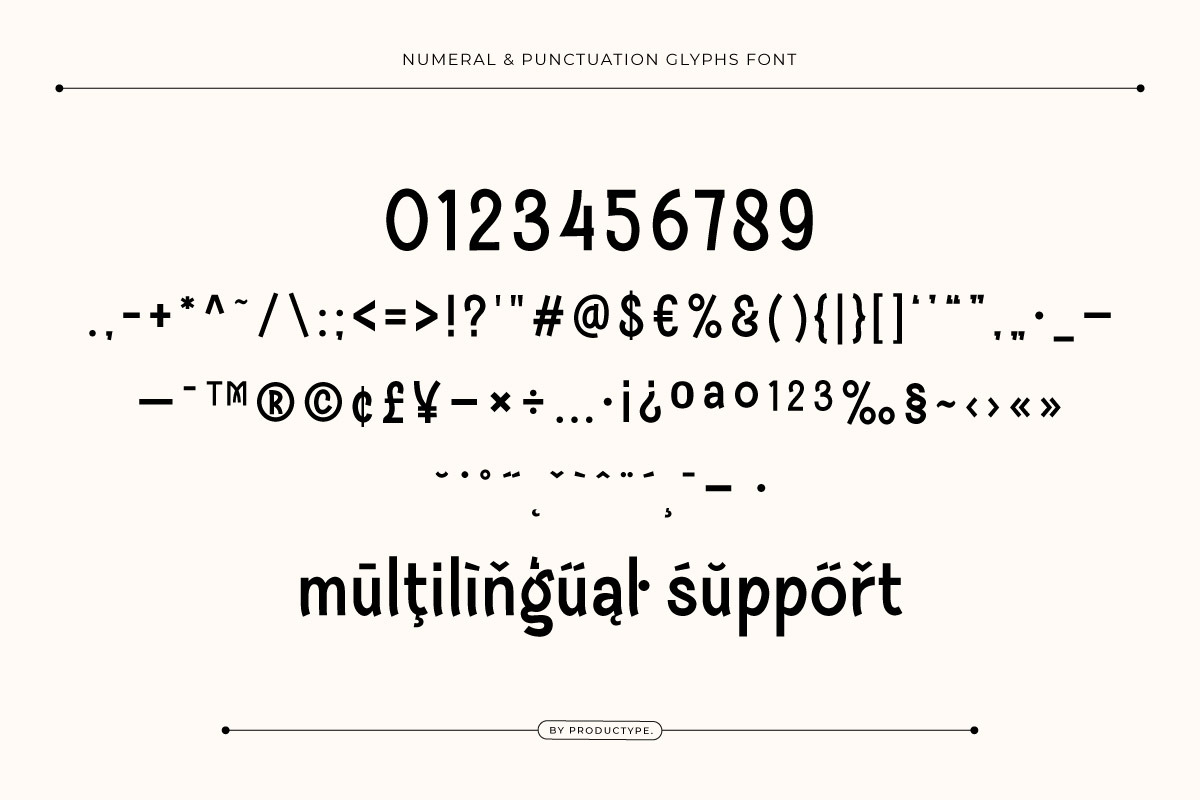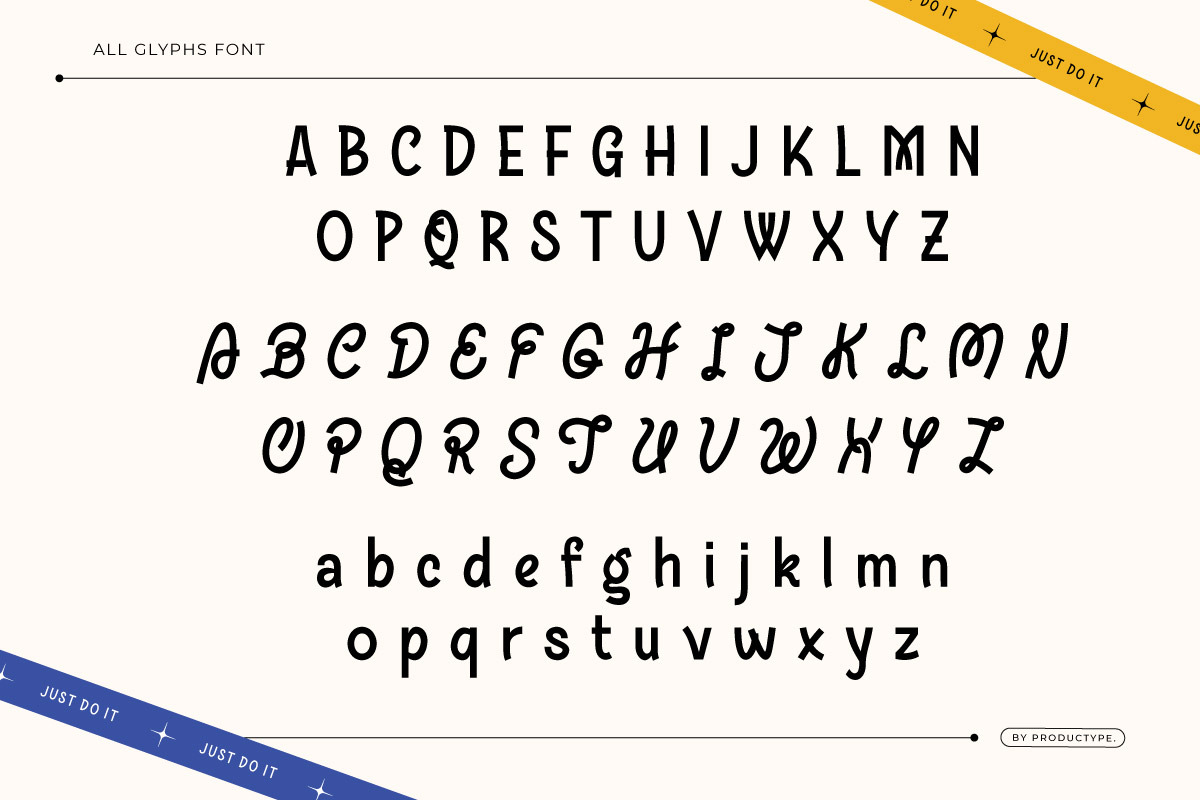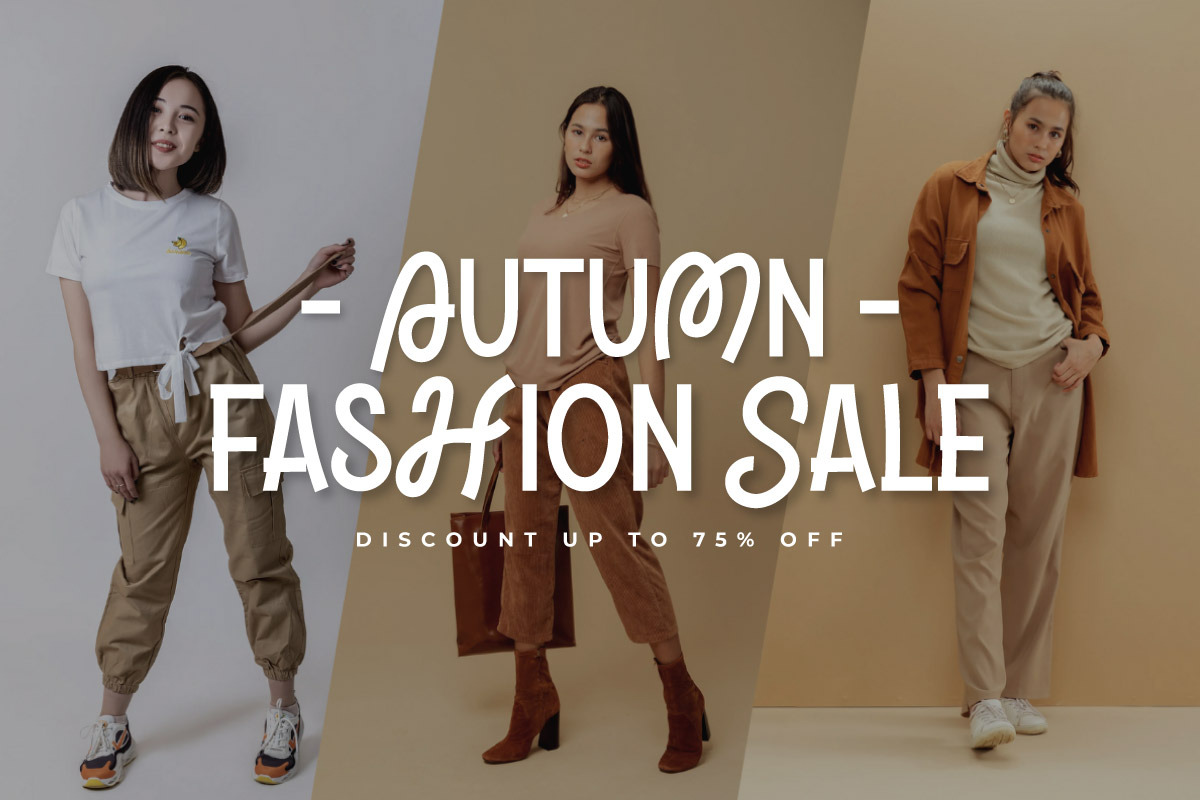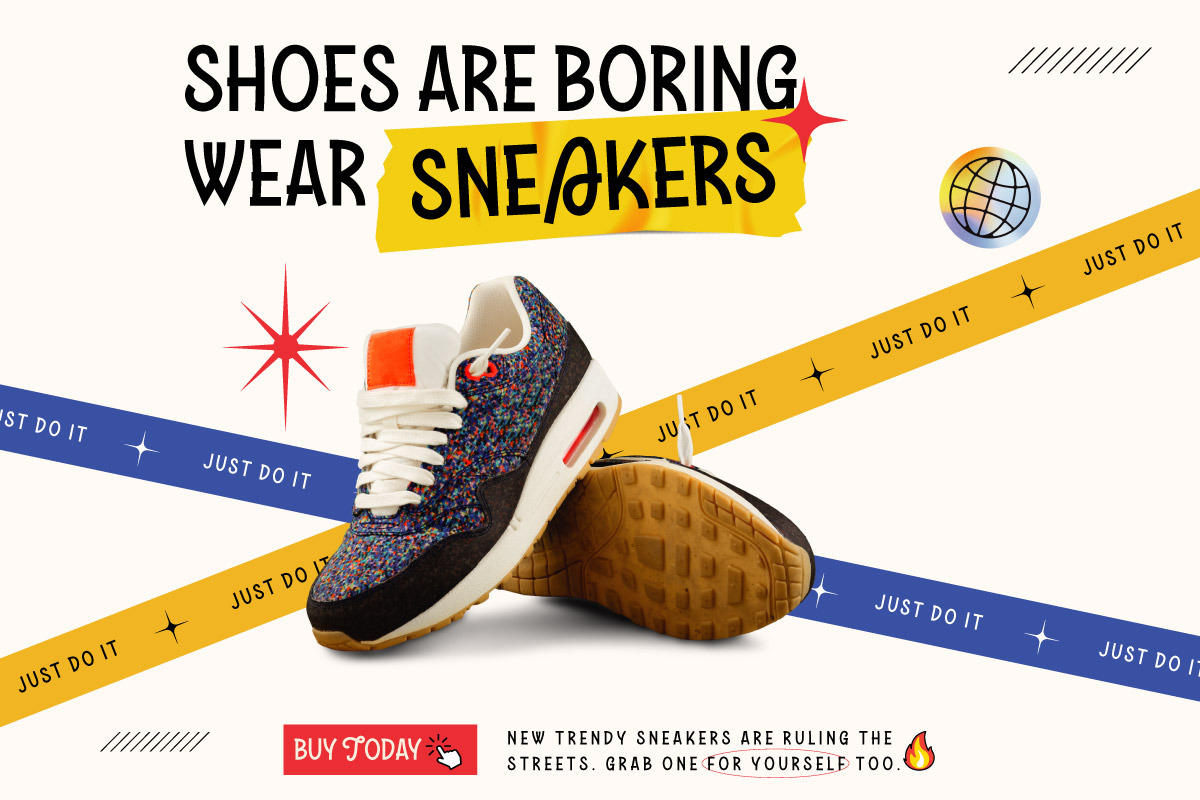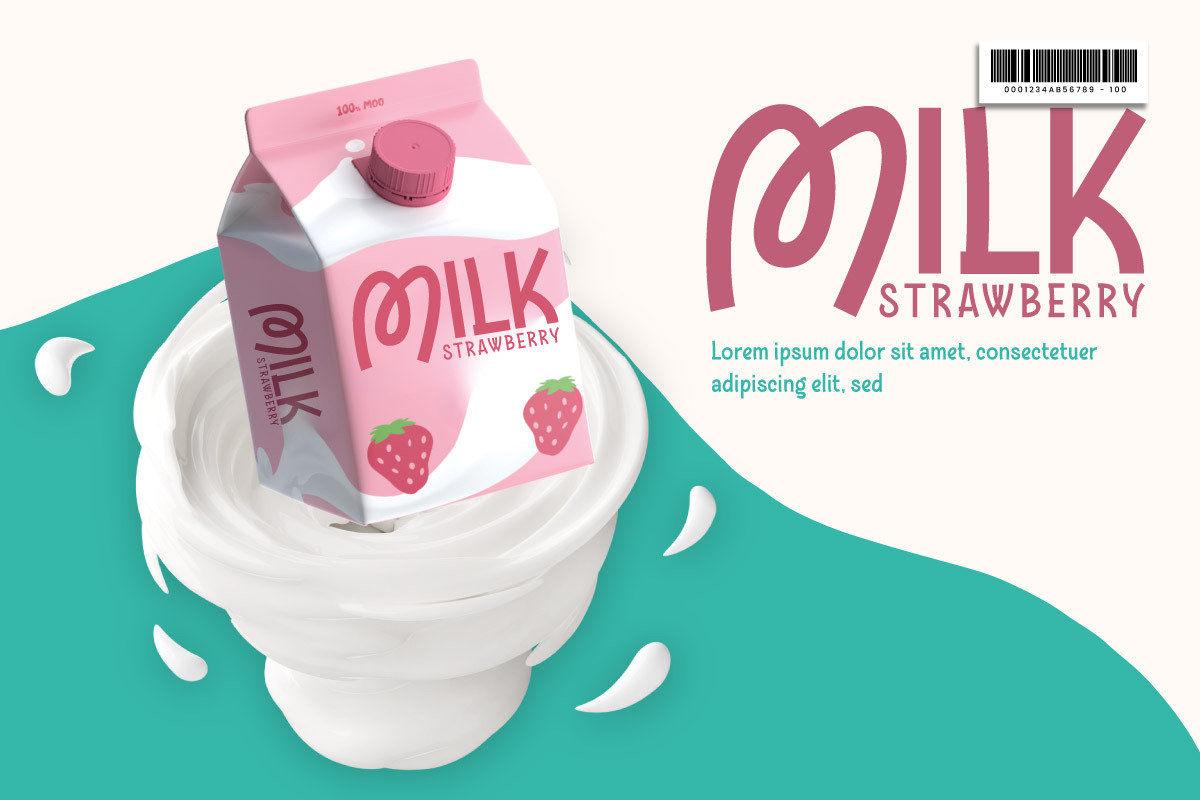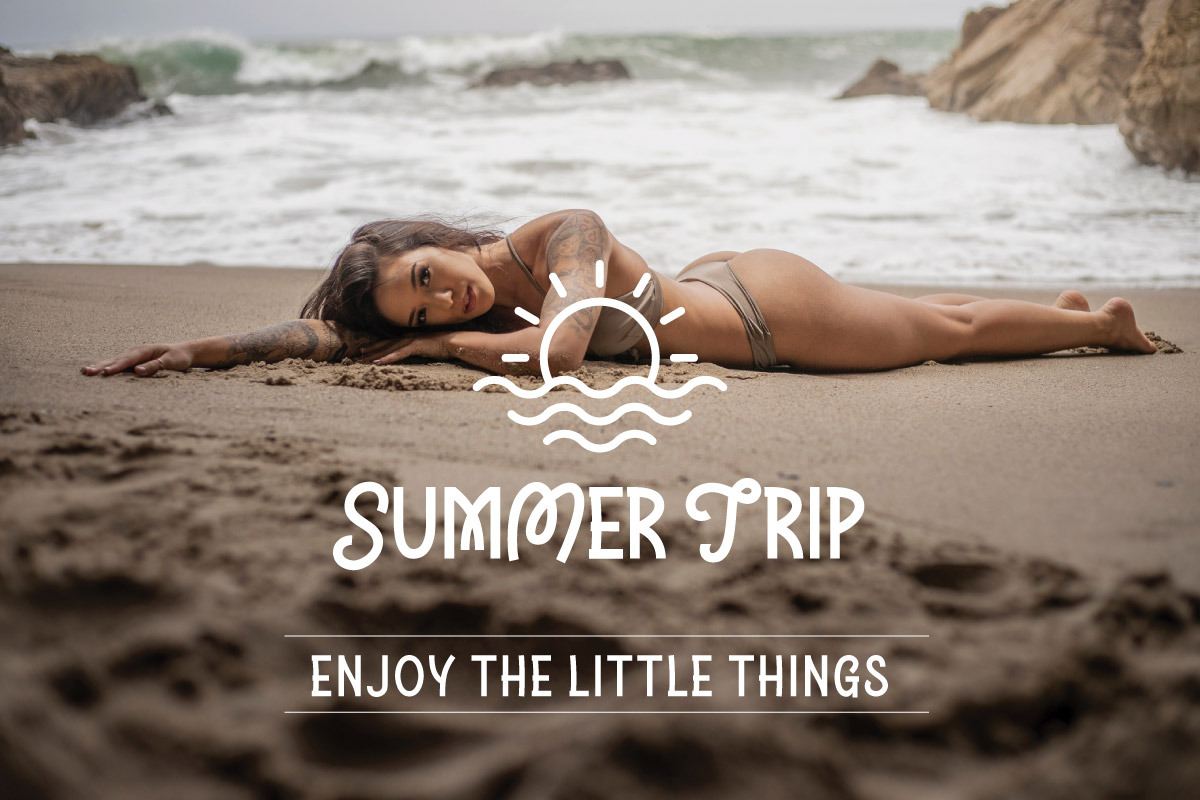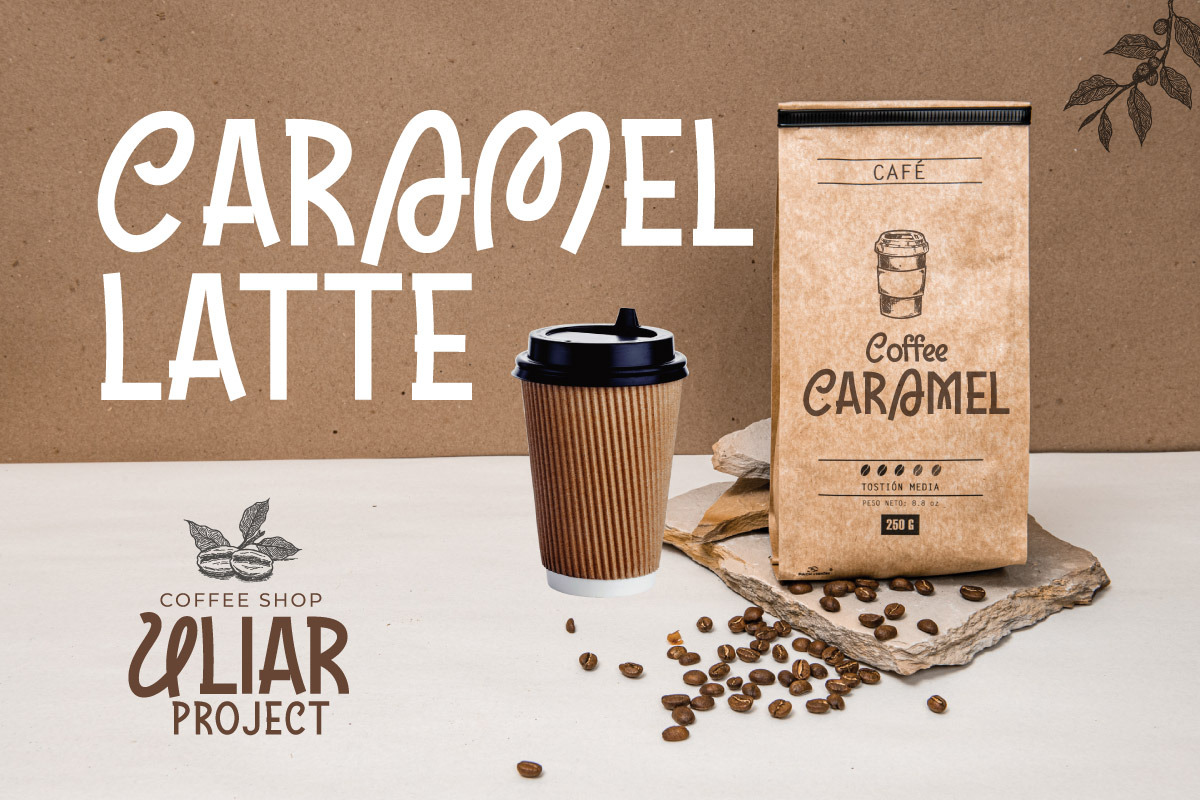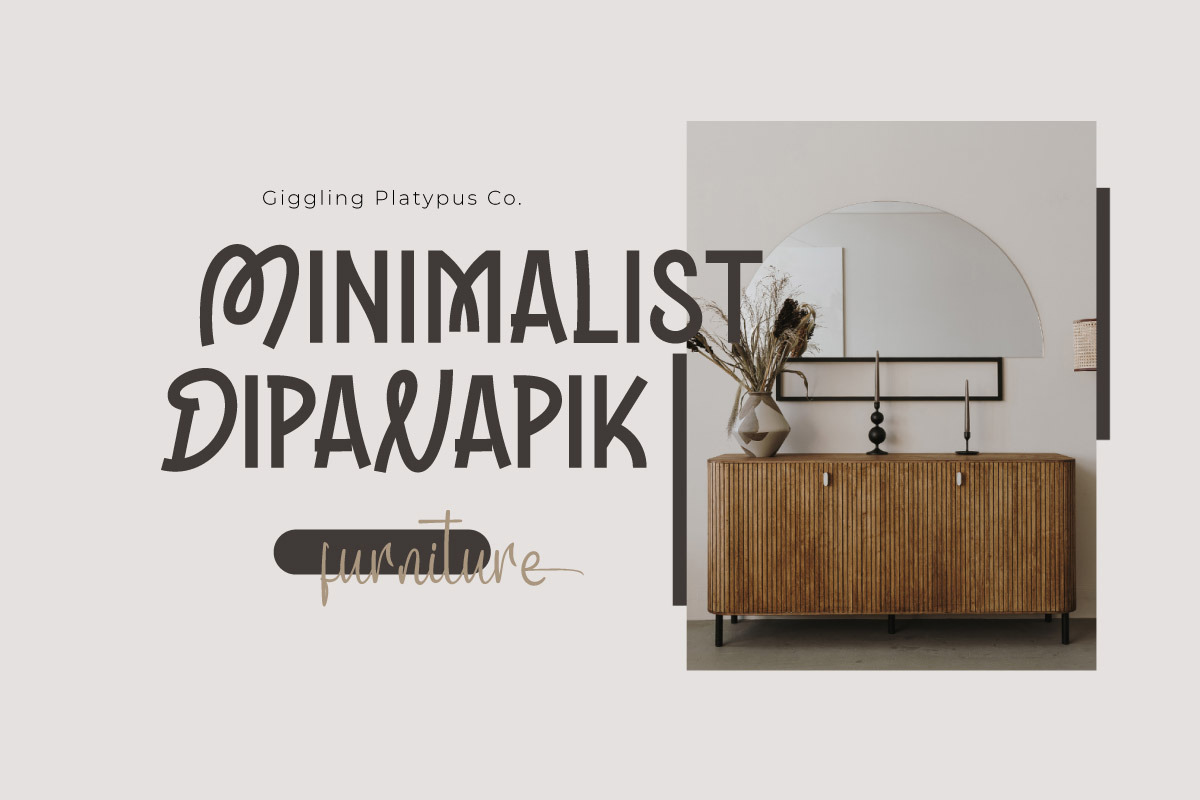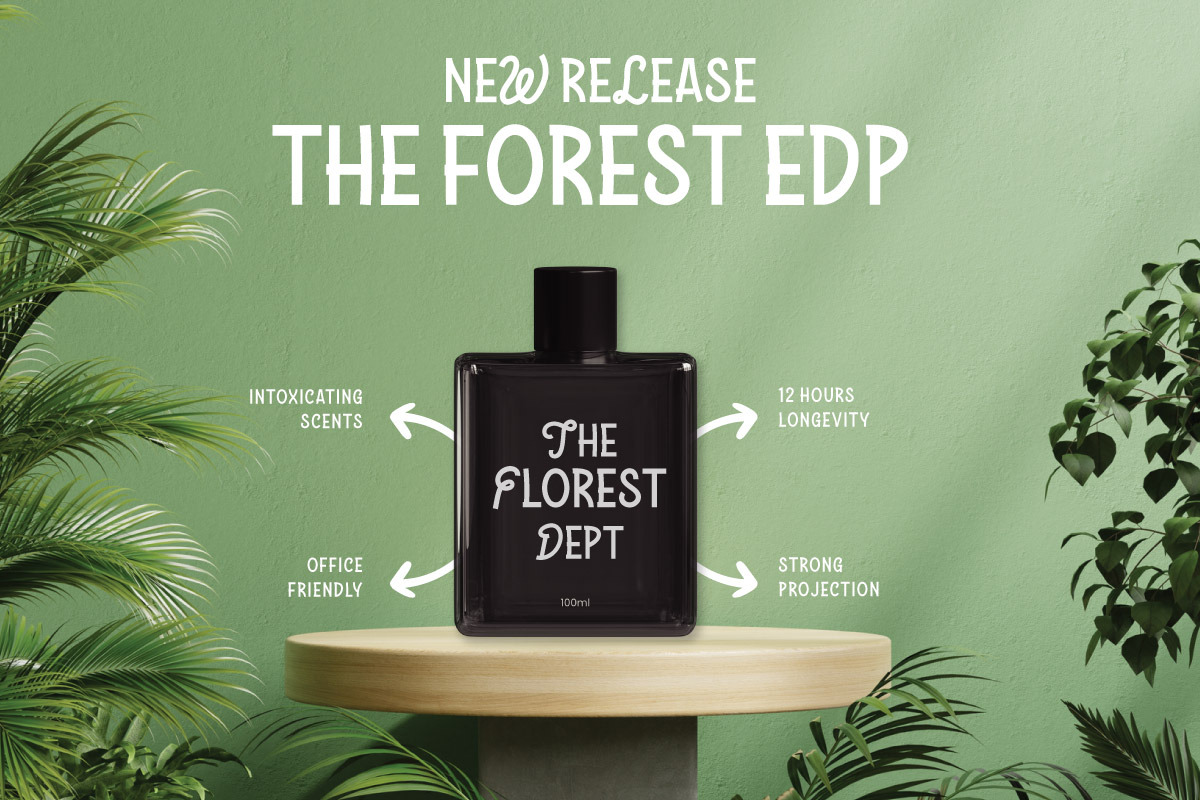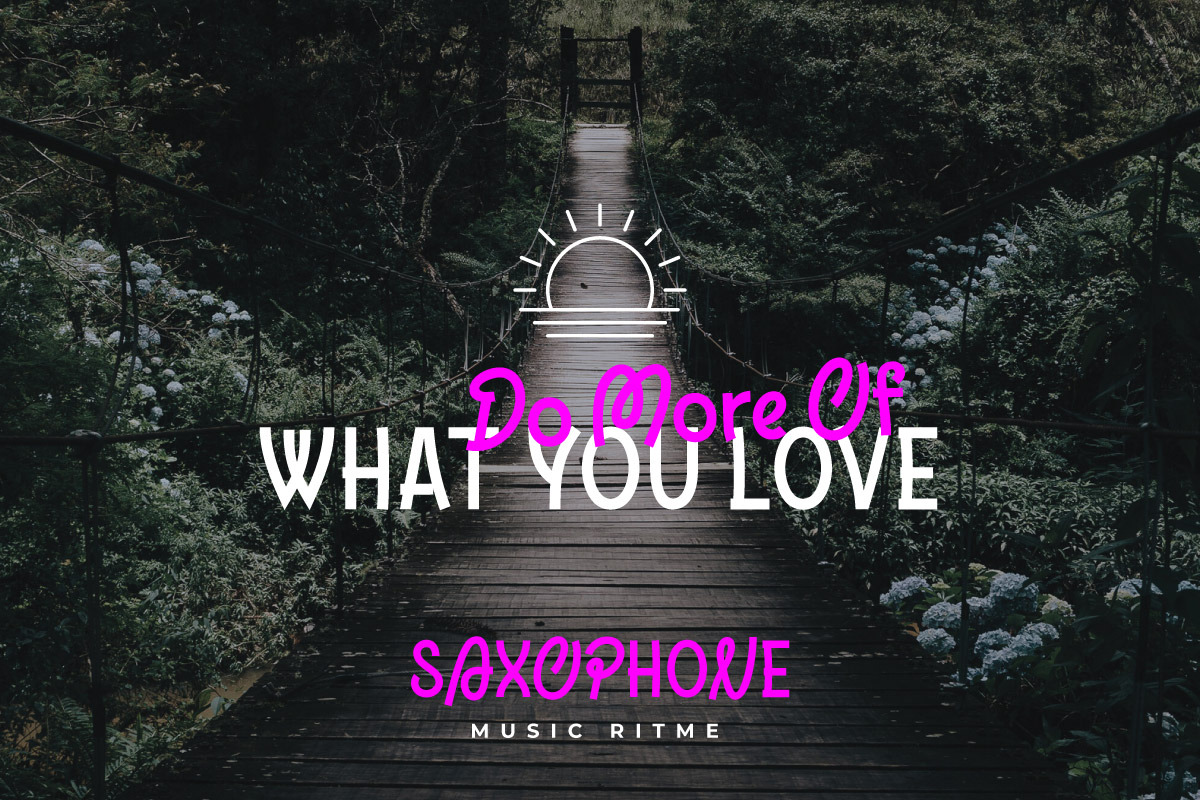
Aboxe - Display Font
Welcome to the world of Aboxe, a display font that exudes a relaxed and fun atmosphere. Designed specifically for summer design themes, Aboxe delivers a cheerful and refreshing style that will bring warmth and joy to any of your projects. Its unique and friendly shape makes Aboxe perfect for branding, posters, party invitations, and anything related to summer. Whether you're designing materials for a beach event, a summer festival, or a playful promotional campaign, Aboxe offers unmatched flexibility and visual appeal. With Aboxe, you can easily capture the essence of summer in each of your creations. Feel happiness and joy in your designs with Aboxe, a font that brings the spirit of summer into your life.